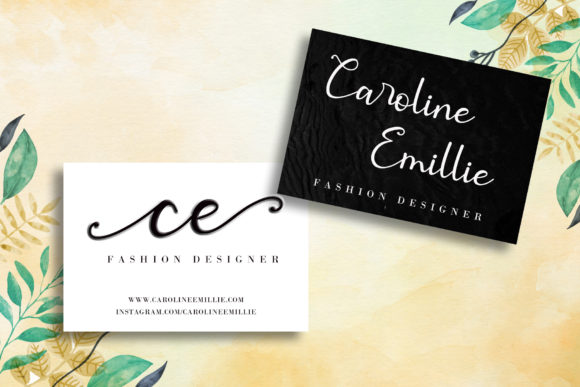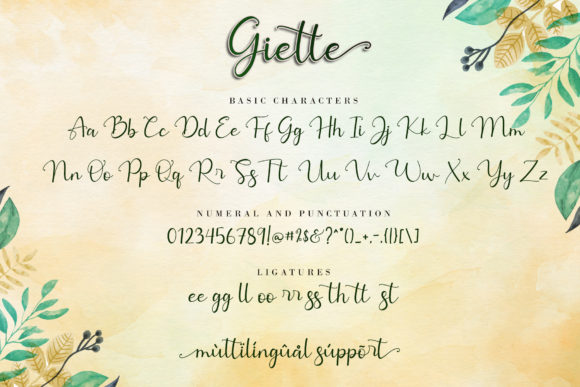
About Giette Font
Giette is a delicate and timeless handwritten font. It is PUA encoded which means you can access all of the glyphs and swashes with ease! It features a varying baseline, smooth lines, gorgeous glyphs and stunning alternates. Fall in love with its incredibly versatile style and use it to create spectacular designs!